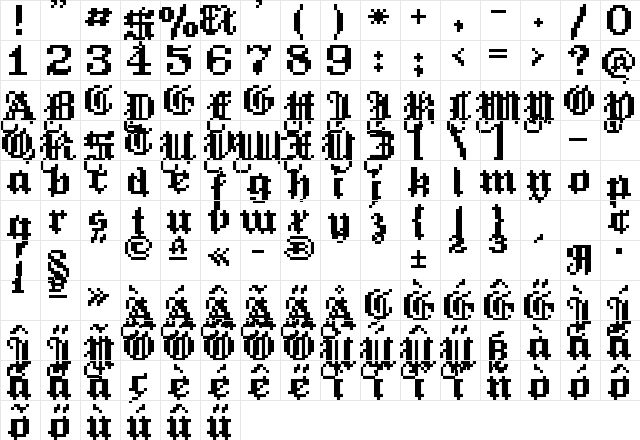
HeinzHeinrich Regular Free Font
HeinzHeinrich Regular
Design Context for HeinzHeinrich
HeinzHeinrich is a composed and adaptable typeface that performs quietly and consistently across a wide range of design contexts.